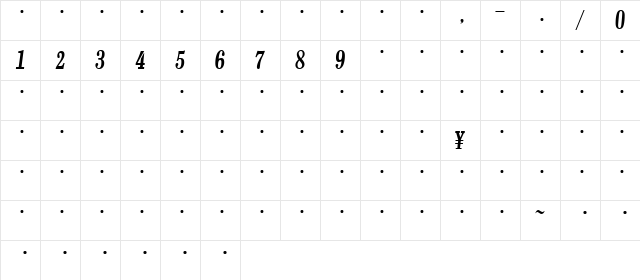
FC13 Regular
Design Context for FC13
FC13 is a composed and adaptable typeface that performs quietly and consistently across a wide range of design contexts.